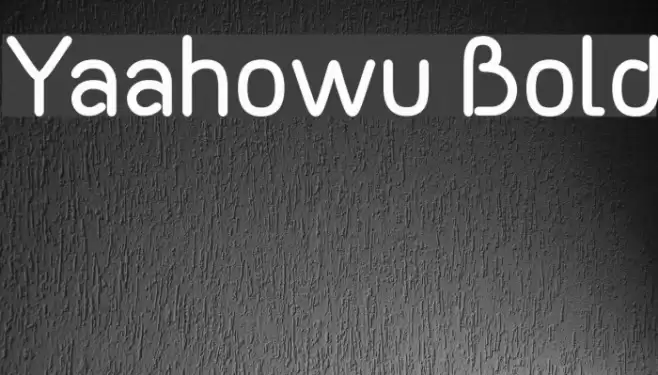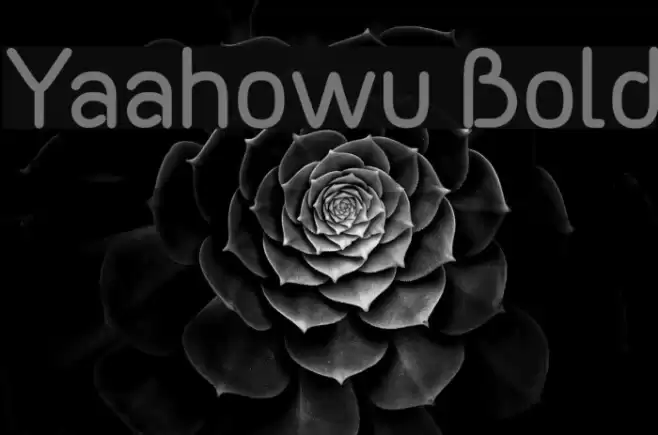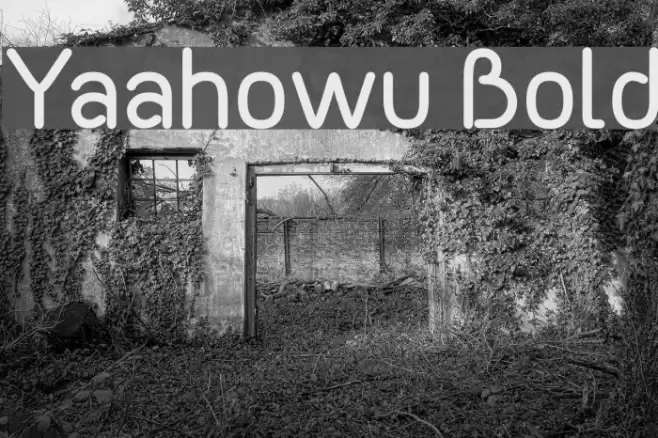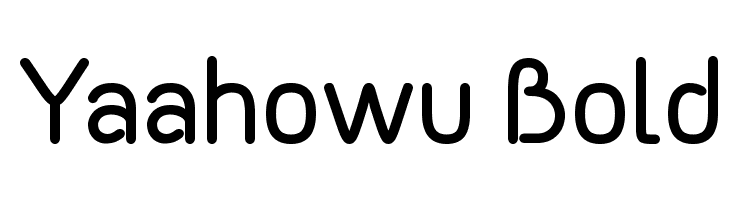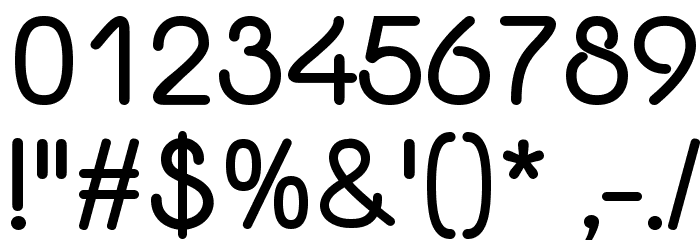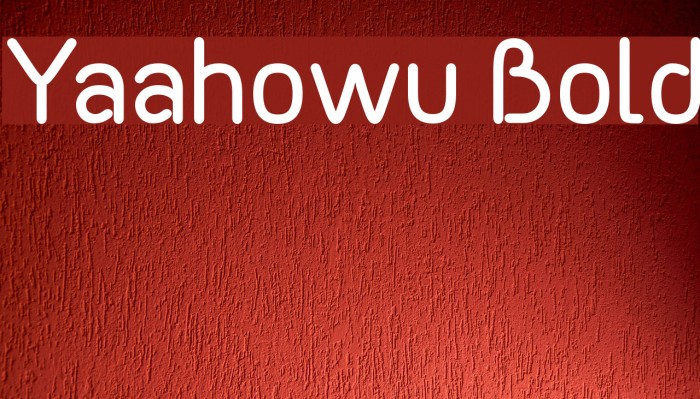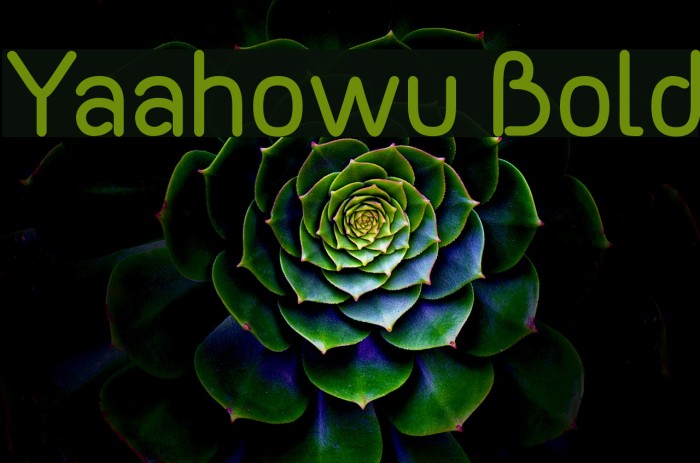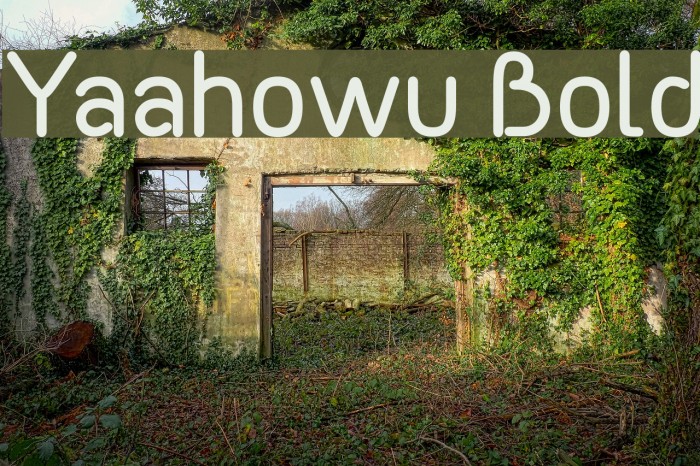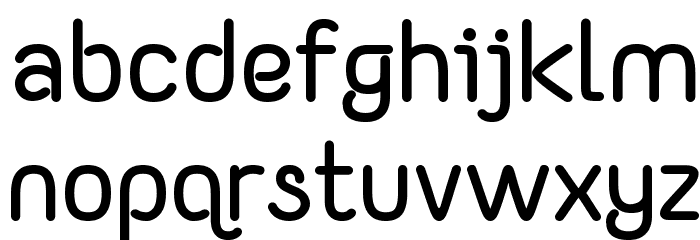
Yaahowu Bold Font
Yaahowu Bold Description
This font features a bold, rounded sans-serif style with smooth curves and a friendly appearance. The characters are evenly spaced, providing a clean and modern look. The uppercase letters maintain a consistent height, while the lowercase letters have a slightly playful, rounded form. The numerals are clear and easy to read, matching the overall aesthetic of the alphabet. Special characters are well-integrated, maintaining the same rounded and bold characteristics. This font is versatile, suitable for a variety of design projects that require a modern and approachable feel.
A bold, rounded sans-serif font with a modern and friendly appearance from Uncategorized fonts.
- Proposed Projects: Ideal for branding, advertising, children's books, and digital interfaces.
- Use Case: Headlines, Logos, Digital Interfaces